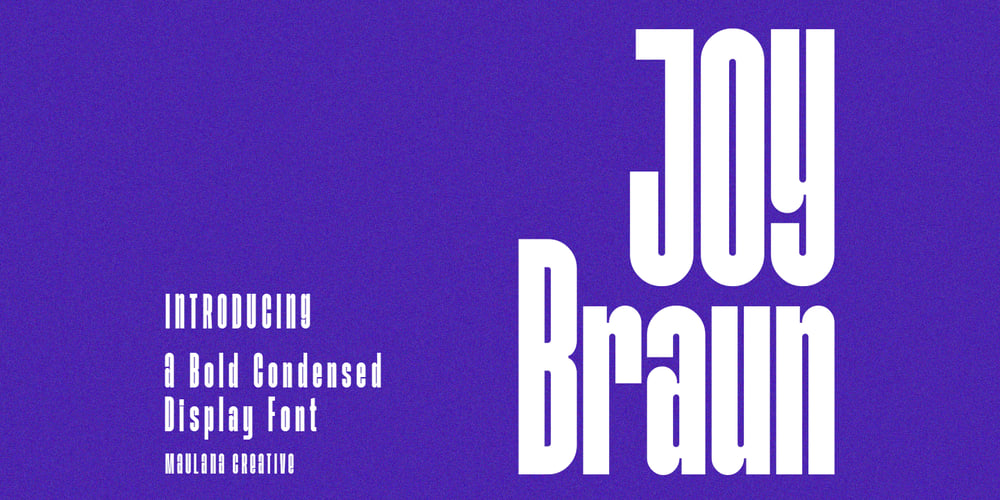
Joy Braun Font Family was designed by Gilang Maulana and published by Maulana Creative. Joy Braun contains 1 styles and family package options. Joy Braun is a Modern sans display font. With combine the lowercase as an uppercase, fun character with a bit of ligatures. To give you an extra creative work. Joy Braun font support multilingual more than 100+ language. This font is good for logo design, Social media, Movie Titles, Books Titles, a short text even a long text letter and good for your secondary text font with scirpt or serif. Make a stunning work with Joy Braun font. Cheers, Maulana Creative